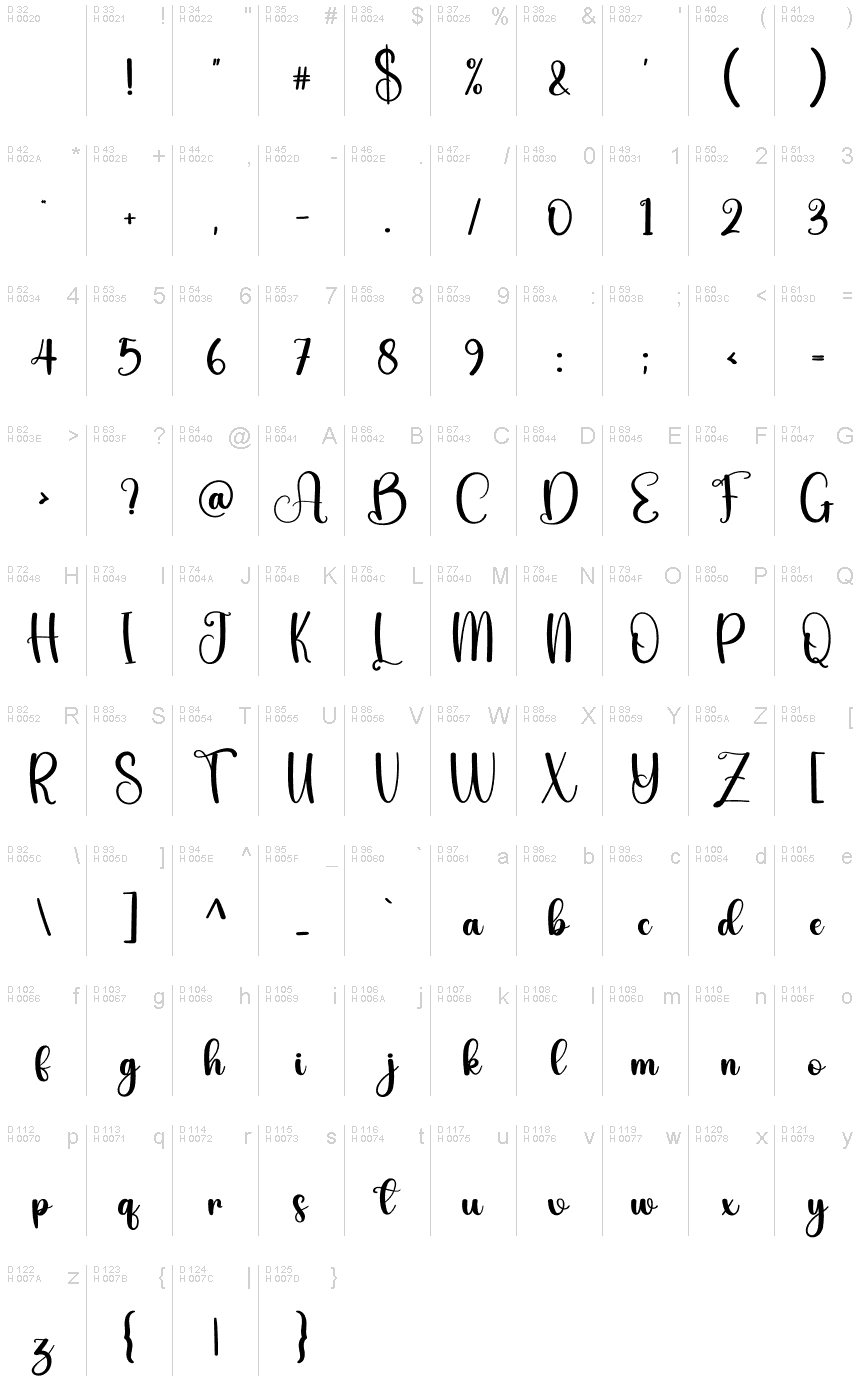
Hello Summer, a cute handwritten font by Harlek Studio, brings a playful touch to any project.
Its whimsical curves and charming characters make it perfect for children's books, greeting cards, and party invitations. With its friendly appearance, this font adds warmth to scrapbooking pages and personal blogs. The semi-bold typeface adds emphasis to headers and titles in brochures or advertisements. Whether you are designing a summer-themed website or creating adorable social media graphics, Hello Summer is your go-to choice for bringing joy and personality to your projects.